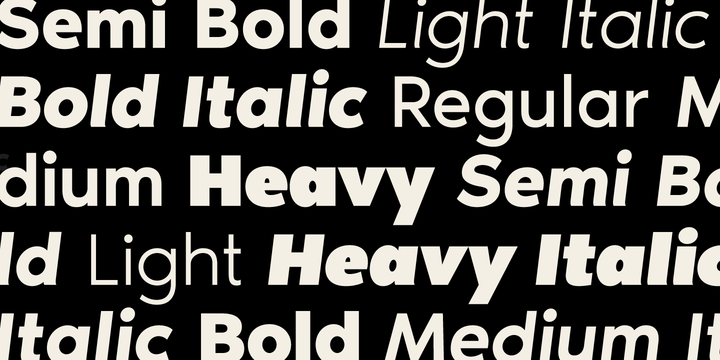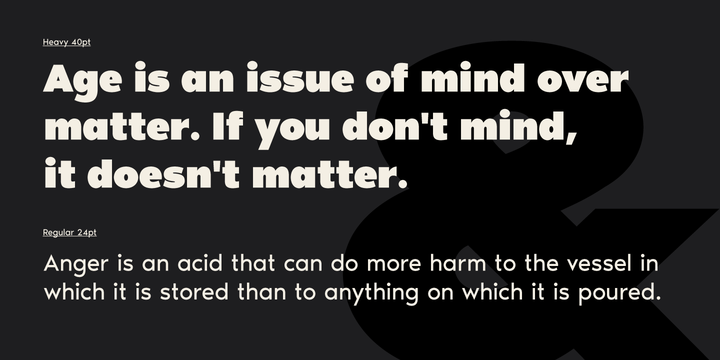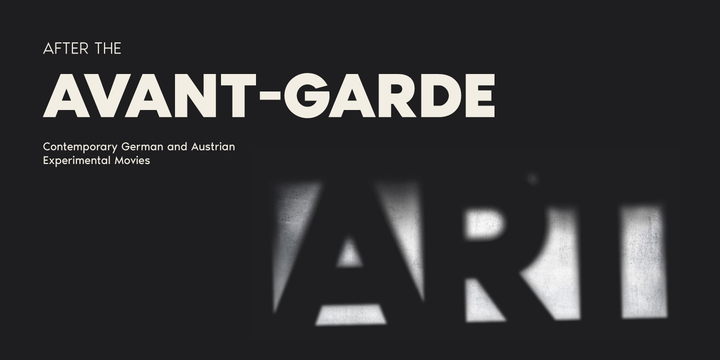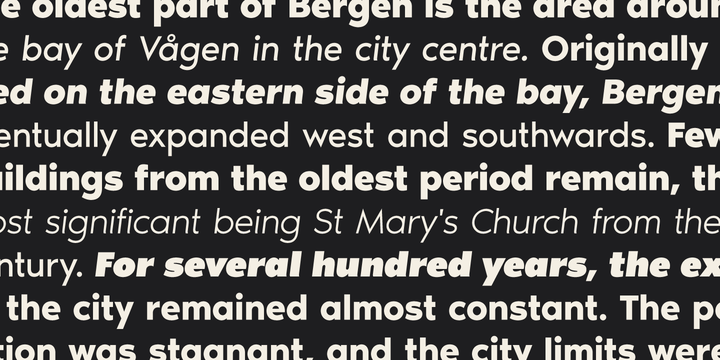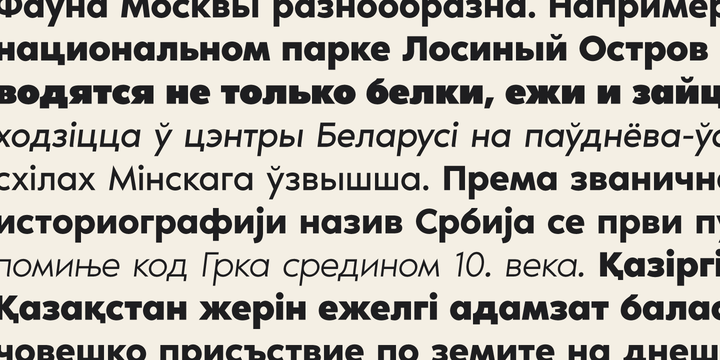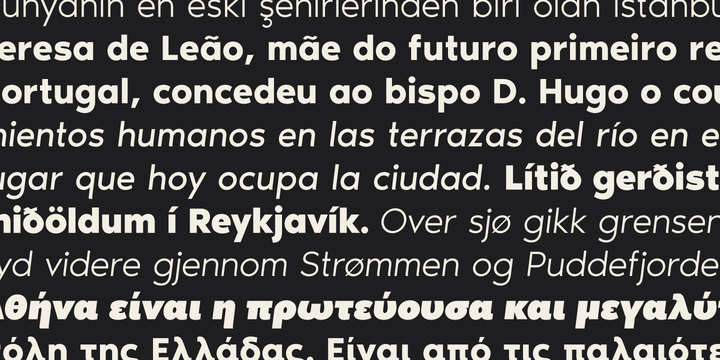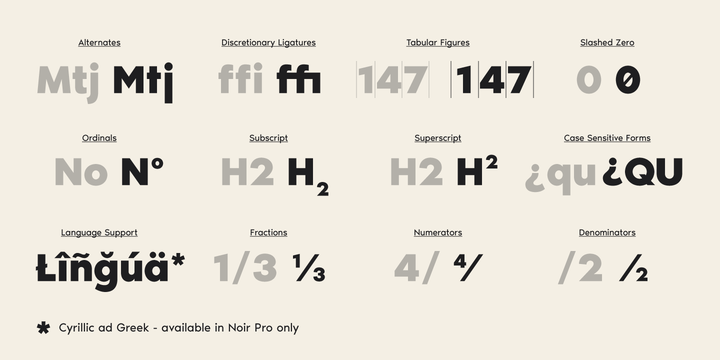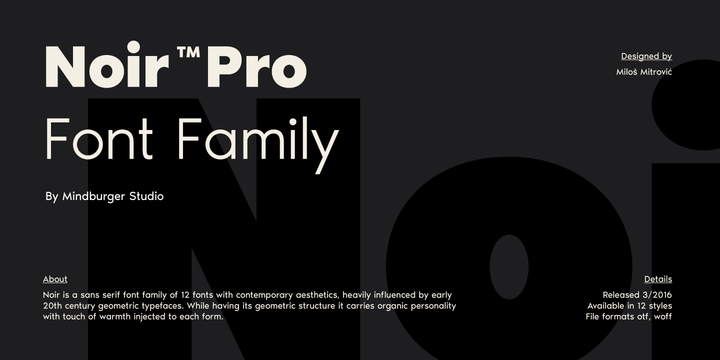
Noir Font Family
Noir is a sans serif font family of 12 fonts with contemporary aesthetics heavily influenced by early 20th century geometric typefaces. While having its geometric structure it carries organic personality with touch of warmth injected to each form.
Noir font family ranges from light and elegant weights perfect for small text, to extremely heavy and masculine weights suited for large display sizes.
Noir has a rich arsenal of Open Type features for highly professional use and extended Latin, Cyrillic and Greek language support.
Noir is delivered as Std and Pro version. Cyrillic and Greek are available in Pro package only.